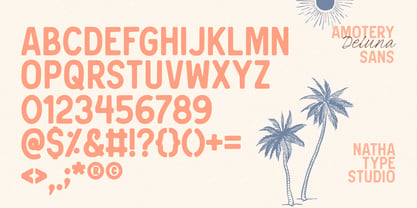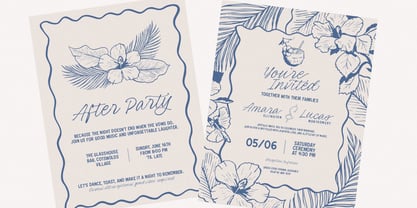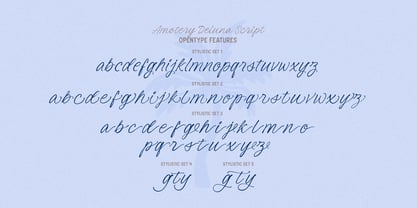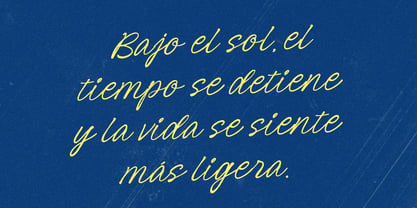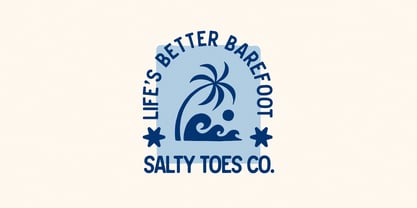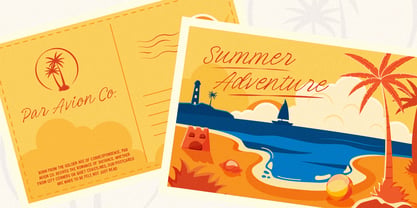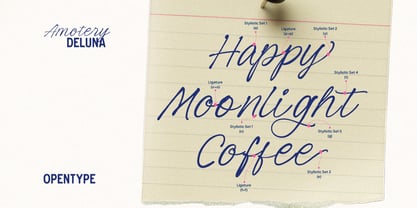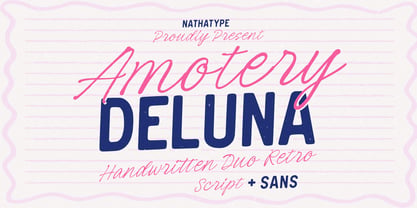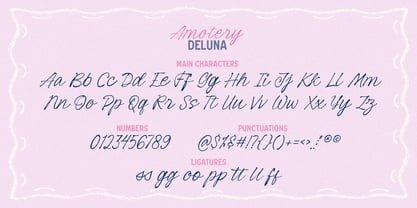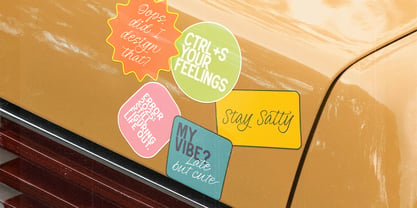
Amotery Deluna
by Nathatype
The Amotery Deluna Font Family was designed by Donis Miftahudin and published by Nathatype. Amotery Deluna contains 2 styles and family package options. More about this family
Amotery Deluna is a beautiful script and sans serif font duo designed to bring versatility, and professional charm. The script font in Amotery Deluna is crafted with smooth, flowing strokes that connect naturally between letters, replicating the authentic movement of real handwriting. In contrast, the bold uppercase sans serif provides balance with its clean, confident lines and strong presence. Together, these two styles create a cohesive and polished look that works beautifully across both print and digital designs. In addition, enjoy the features here. Features: Ligatures Stylistic Sets Multilingual Supports PUA Encoded Numerals and Punctuations Amotery Deluna fits in branding, quotes, invitations, logos, posters, and many more designs. Find out more ways to use this font by taking a look at the font preview. Thanks for purchasing our fonts. Hopefully, you have a great time using our font. Feel free to contact us anytime for further information or when you have trouble with the font. Thanks a lot and happy designing.
Designers: Donis Miftahudin
Foundry: Nathatype